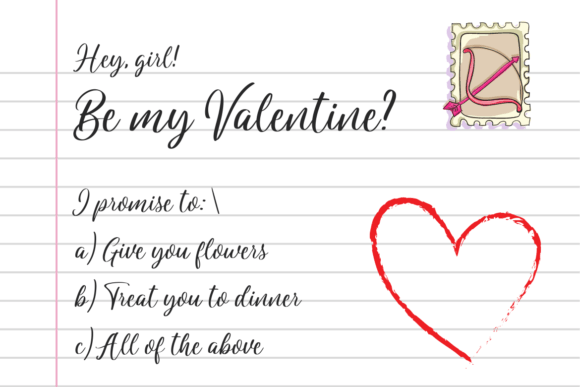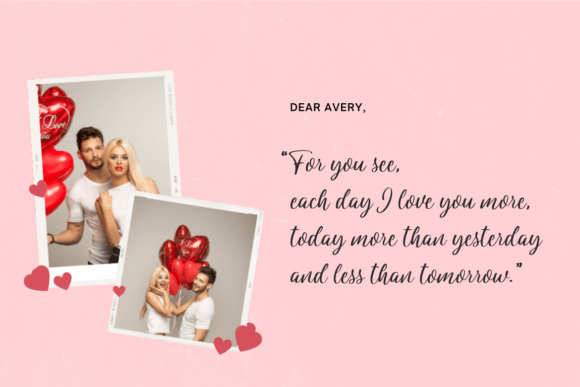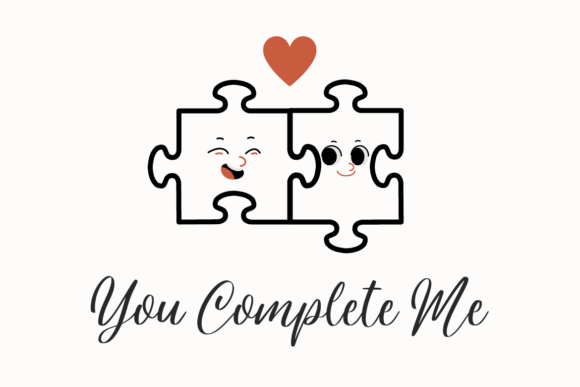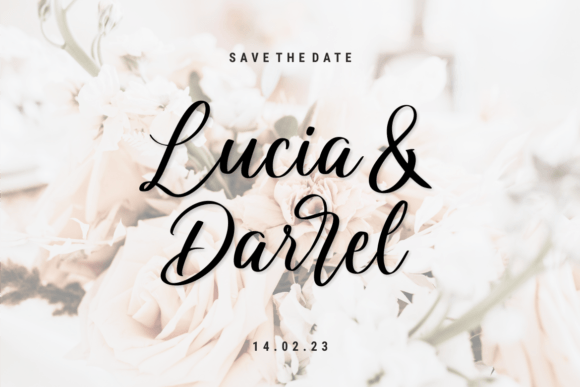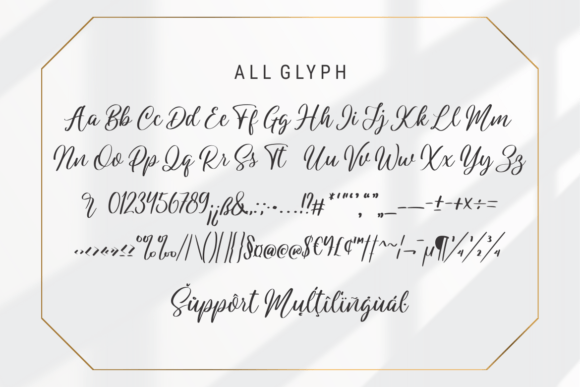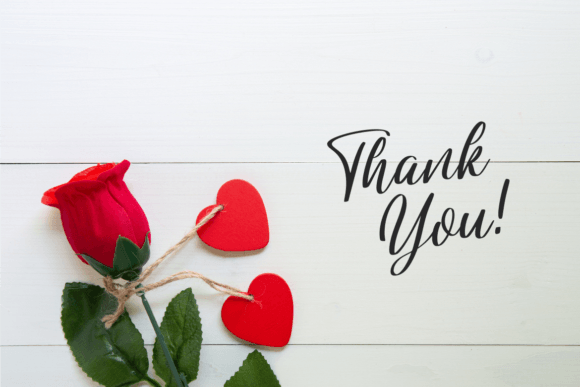
Introduction to Maria Valentina Font
Have you ever found yourself staring at a blank page, waiting for inspiration to strike? As a designer, this is a familiar feeling. It’s the moment when you’re searching for that perfect font to bring your creative project to life. This is where the Maria Valentina Font comes in – a delicate, simple, and stylish handwritten font that’s sure to add a touch of romance to your next design.
As a valuable resource for designers, the Maria Valentina Font offers a wide spectrum of applications, from greeting cards to headlines. Its versatility and high quality make it an ideal choice for any project, whether you’re working on a commercial campaign or a personal creative endeavor. With its transparent background and elegant design, this font is guaranteed to elevate your work and make it stand out.
- Designed with attention to detail and a unique aesthetic, setting it apart from other fonts
Honest Review: Maria Valentina Font
I recently had the pleasure of working with the Maria Valentina Font on a creative project, and I must say it’s been a great addition to my design resource library. The font’s high quality and elegant design make it perfect for a variety of applications, from typography-heavy designs to subtle accents.
Here are some of the things I like about the Maria Valentina Font:
- ✨ Elegant design that adds a touch of sophistication to any project
- ✨ High quality font that’s perfect for both digital and print applications
That being said, there are a few limitations to be aware of:
- ⚠️ Limited character set, which may not be suitable for projects that require a wide range of characters
- ⚠️ May not be suitable for very small font sizes, as the design can become pixelated
Overall, I’m very impressed with the Maria Valentina Font. It’s a great addition to any designer’s library, and its free download makes it an excellent value. Just be aware of the limitations, and you’ll be well on your way to creating beautiful designs with this font.
The Maria Valentina Font is a versatile and elegant design resource perfect for any creative project. With a high-quality and stylish design, this font is ideal for use in various digital applications.
To get the most out of the Maria Valentina Font, use it with a transparent background to create a clean and elegant design. You can also use it in combination with other design elements to create a unique and eye-catching look.
The Maria Valentina Font is ideal for use in various design projects, including:
- Wedding invitations
- Posters
- Brochures